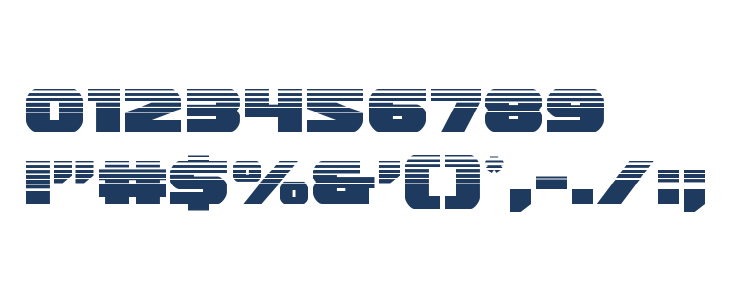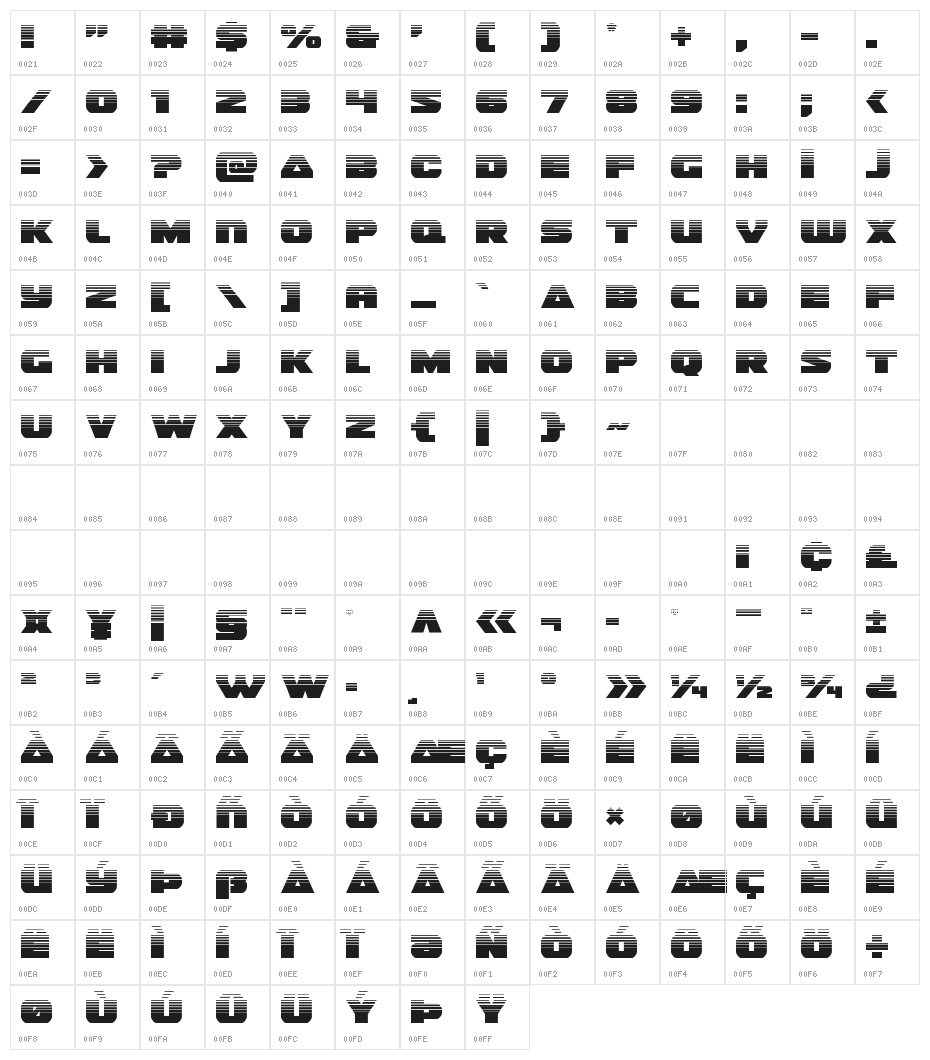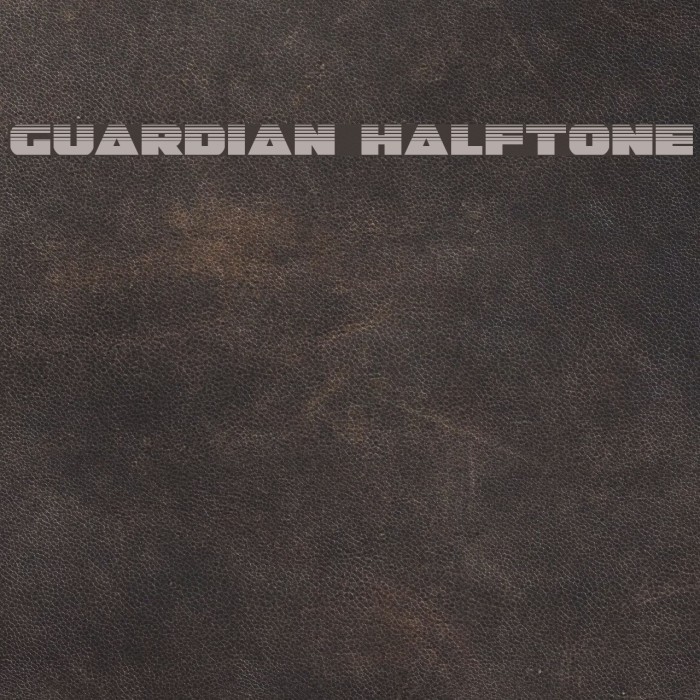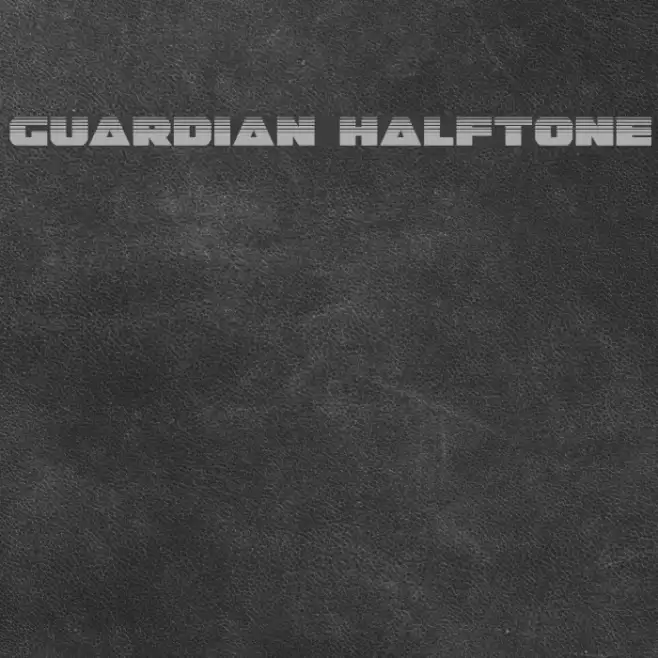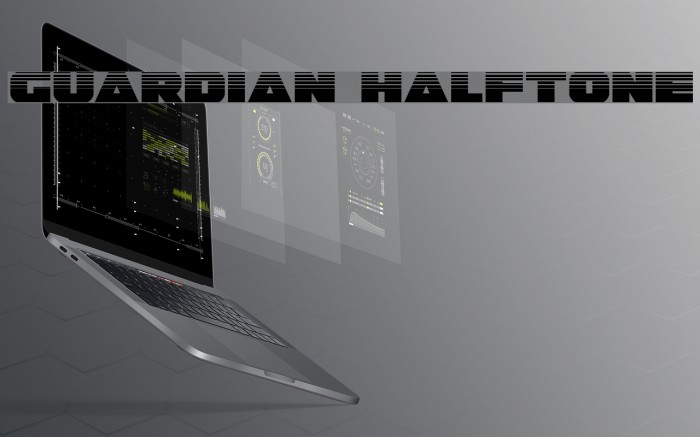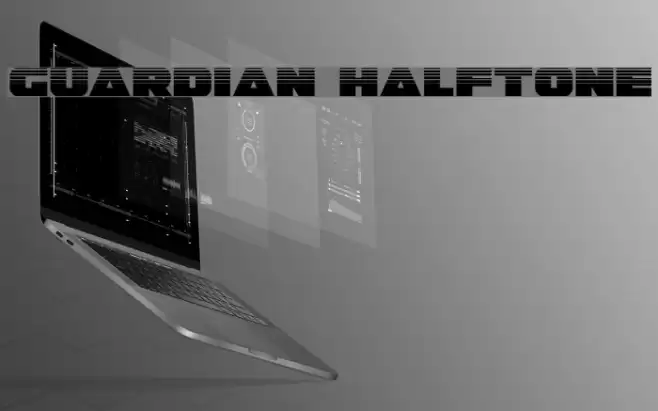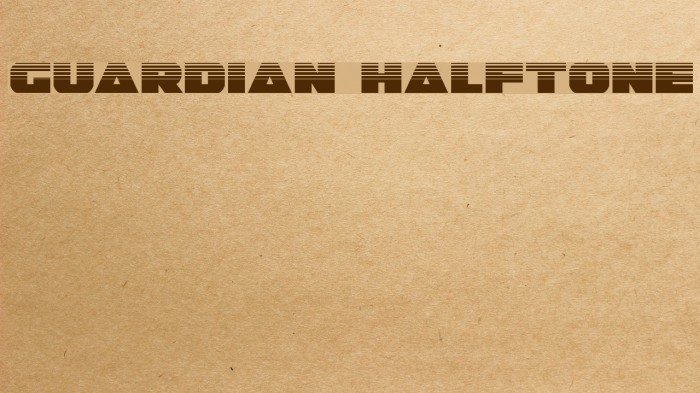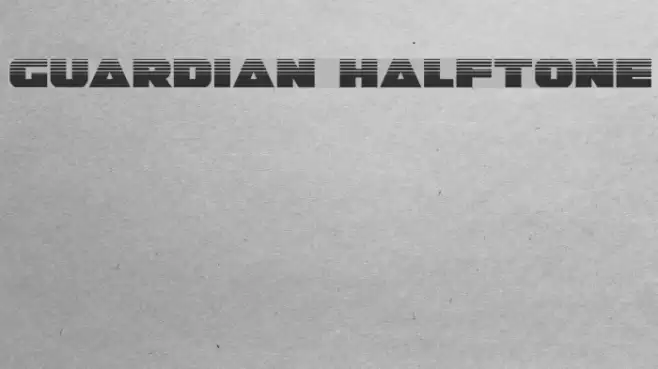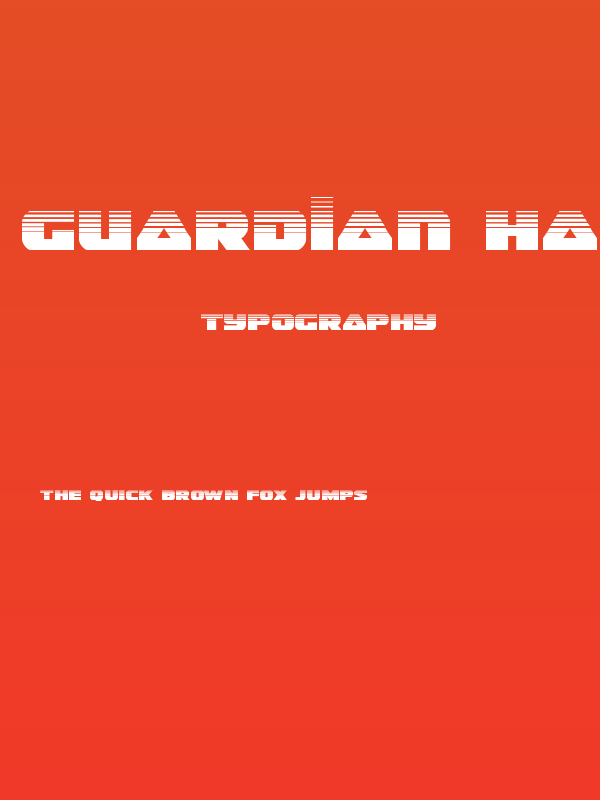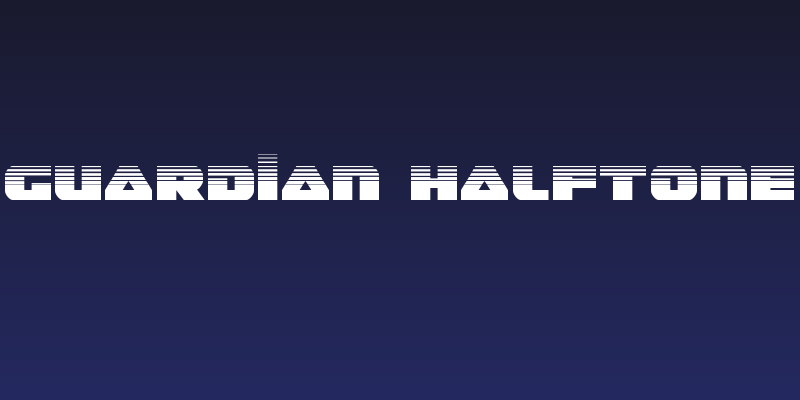
Guardian Halftone Font
Guardian Halftone Description
This font features a bold, geometric design with a unique halftone effect that adds a modern and edgy feel. The characters are constructed with solid, block-like shapes, and the halftone pattern creates an illusion of depth and texture. The uppercase and lowercase letters maintain a consistent style, with the halftone lines providing a sense of movement and dynamism. The numerals and special characters are equally bold, ensuring a cohesive look across all text. This font is ideal for projects that require a strong visual impact and a contemporary aesthetic.
| Proposed Projects | Ideal for posters, album covers, branding, and any project needing a bold, modern aesthetic. |